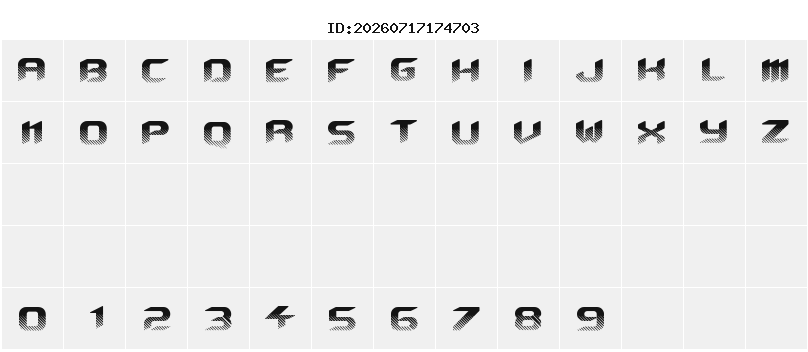
Beyond Preview
• Font Name: Beyond
About Beyond.ttf
Beyond.ttf is a modern, elegant sans-serif font designed for ultimate readability and visual harmony. Perfect for branding, headlines, web design, and print materials.